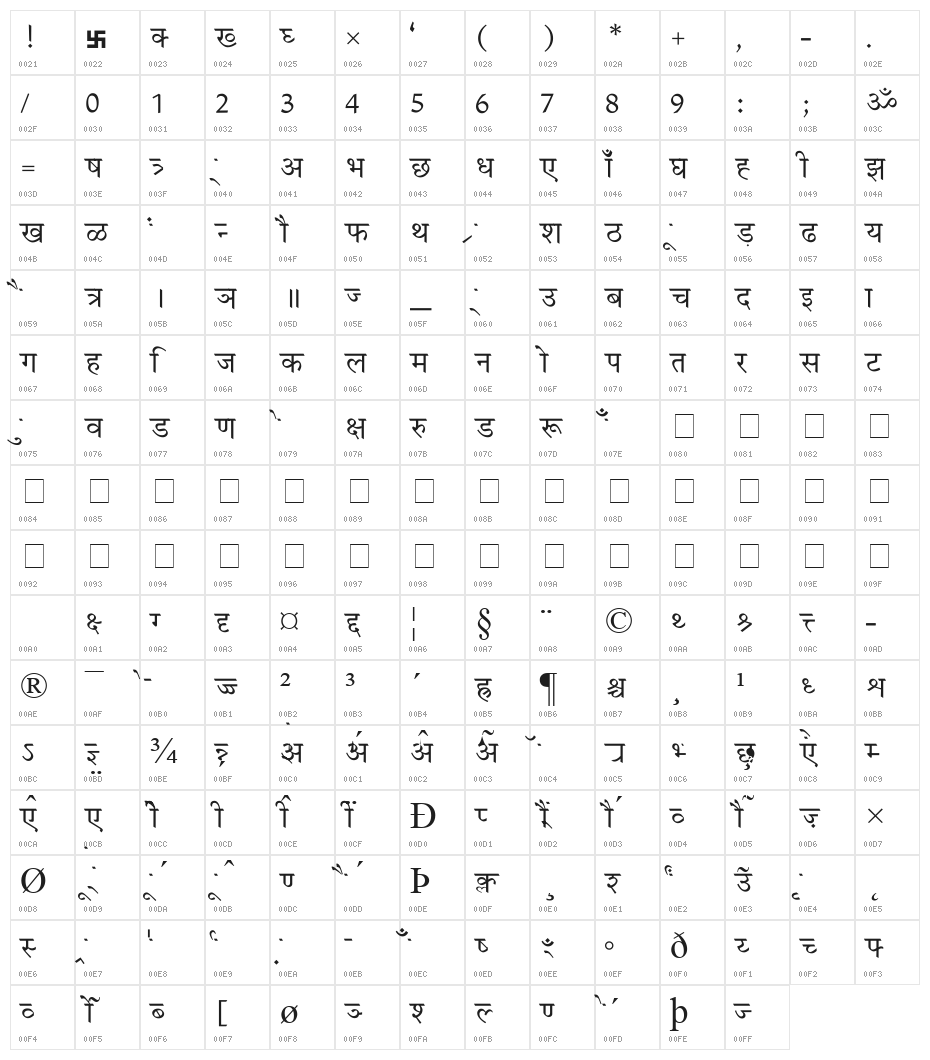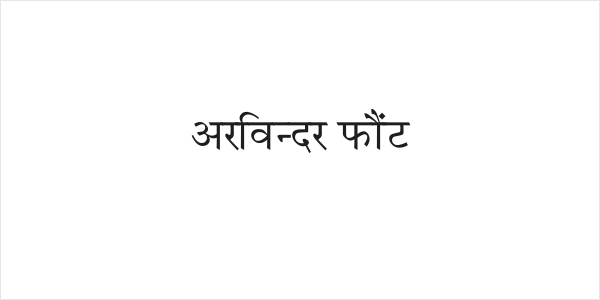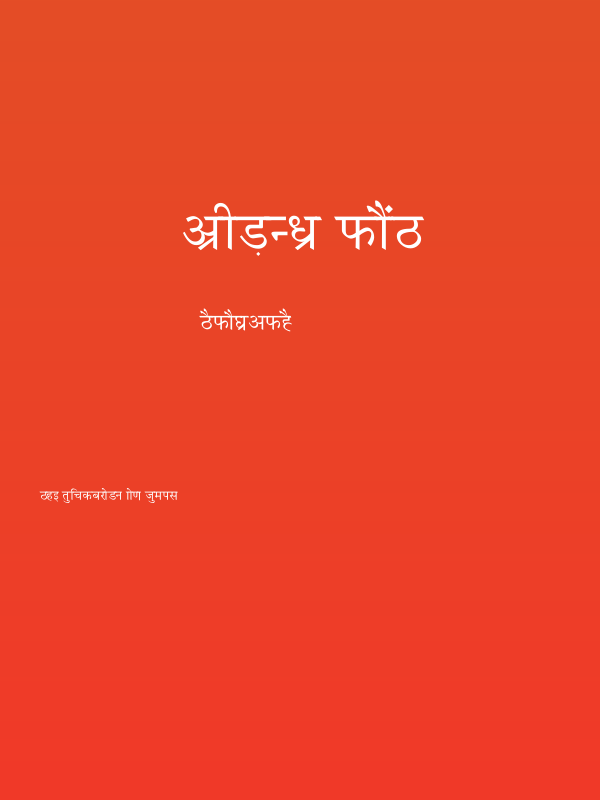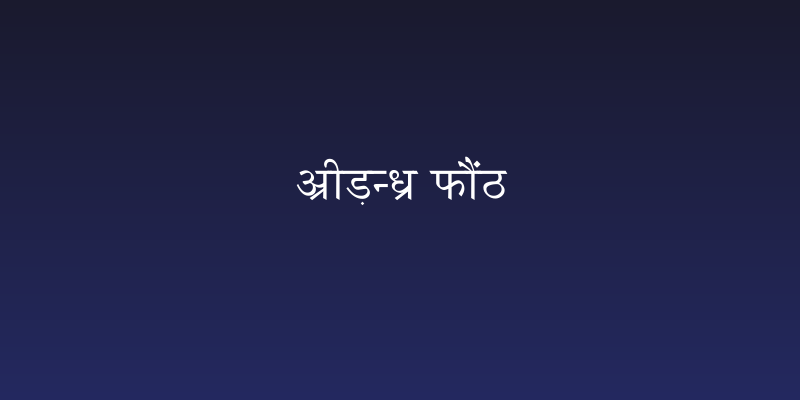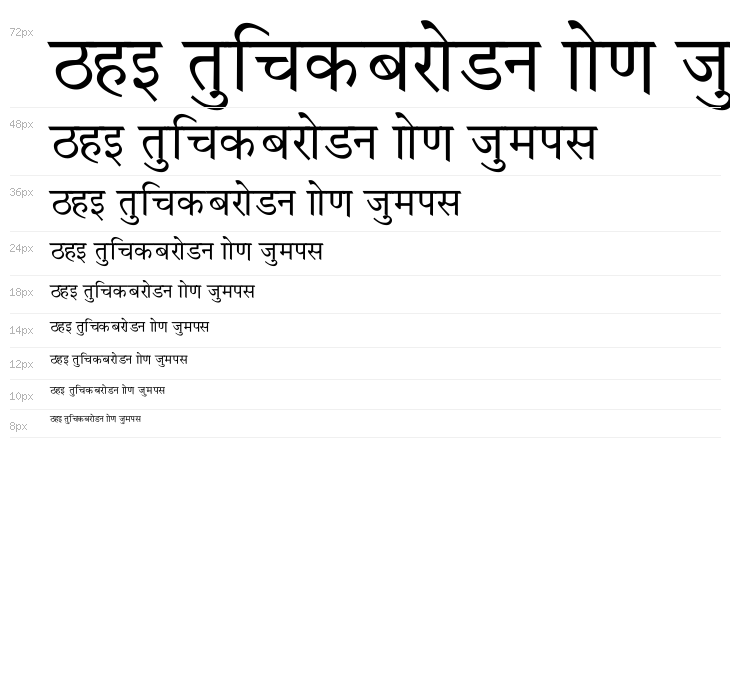
ArivNdr POMt Font
ArivNdr POMt Description
This font showcases a traditional Devanagari script with a modern twist. The characters are elegantly crafted with a balanced weight, providing a clear and readable appearance. The strokes are smooth and consistent, with a slight flair at the terminals, adding a touch of sophistication. The numerals are bold and distinct, ensuring easy readability. Special characters are designed with attention to detail, maintaining the overall aesthetic of the font. This font is versatile, suitable for both digital and print media, and can be used in various contexts where a classic yet contemporary look is desired.